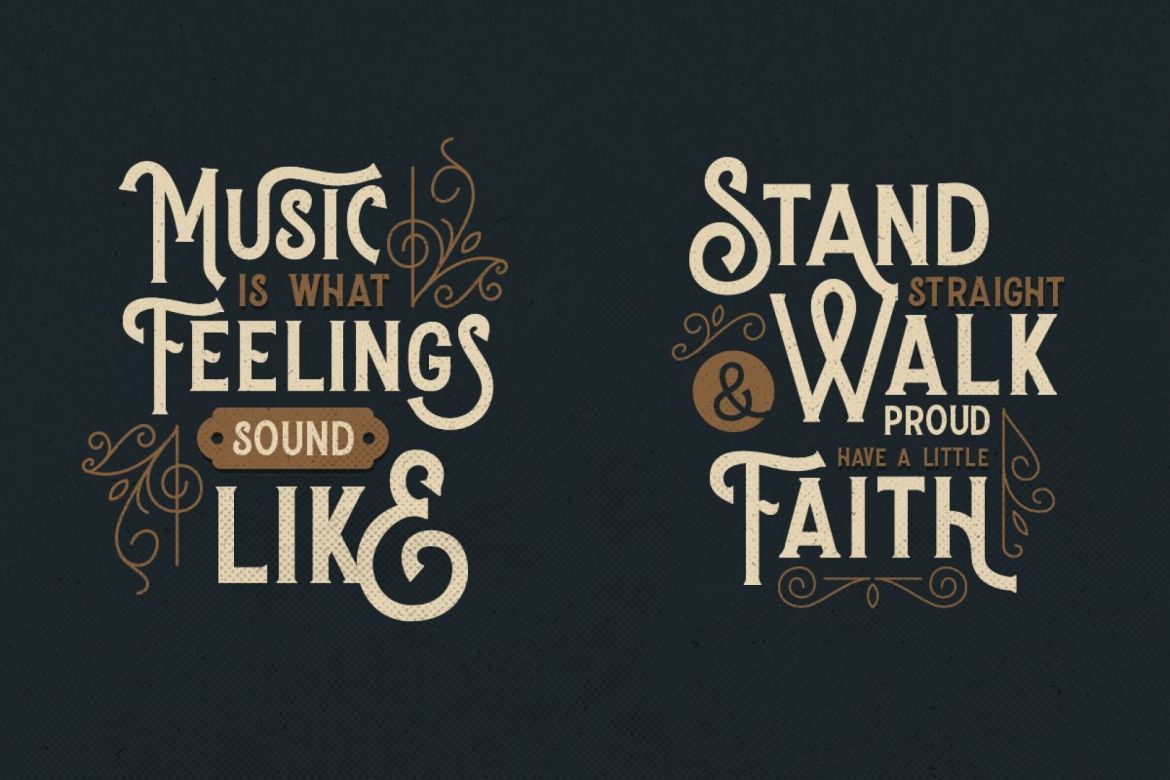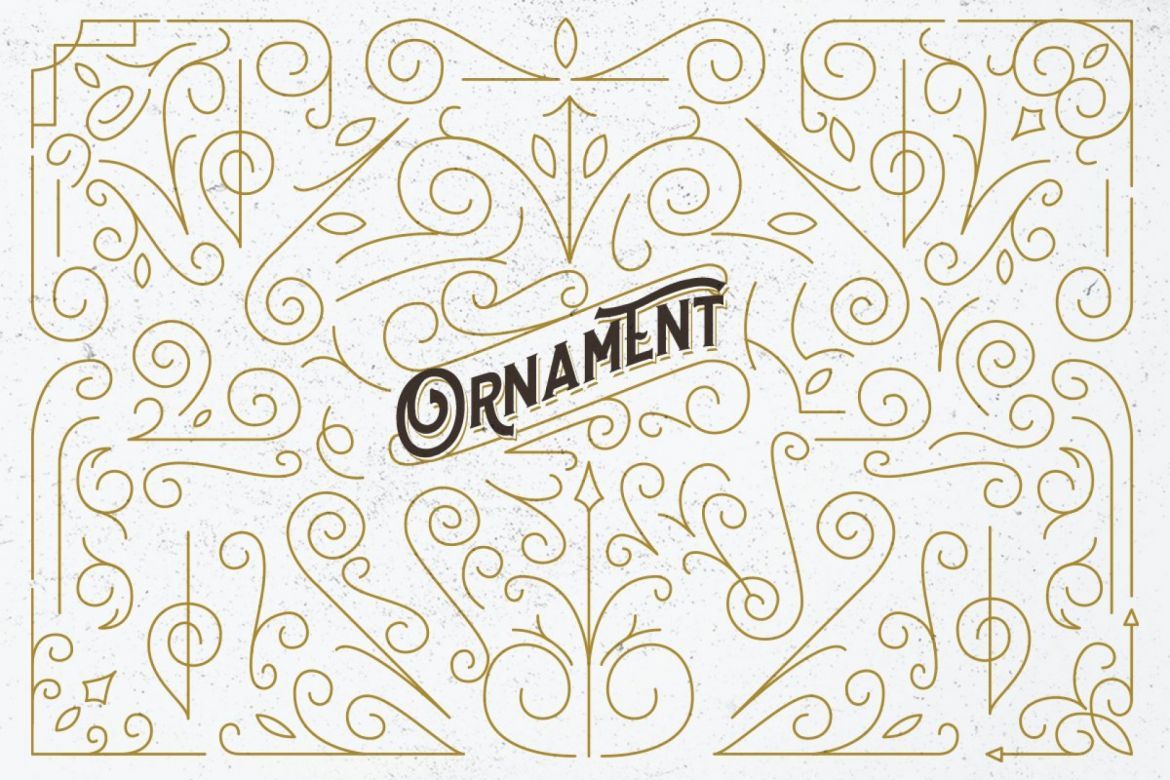
Stomper - A Vintage Display Font
• complementary ornaments are very suitable for the font style itself.
• suitable for those of you who need fonts for titles, logos, clothing, invitations, branding, packaging, advertising, etc.